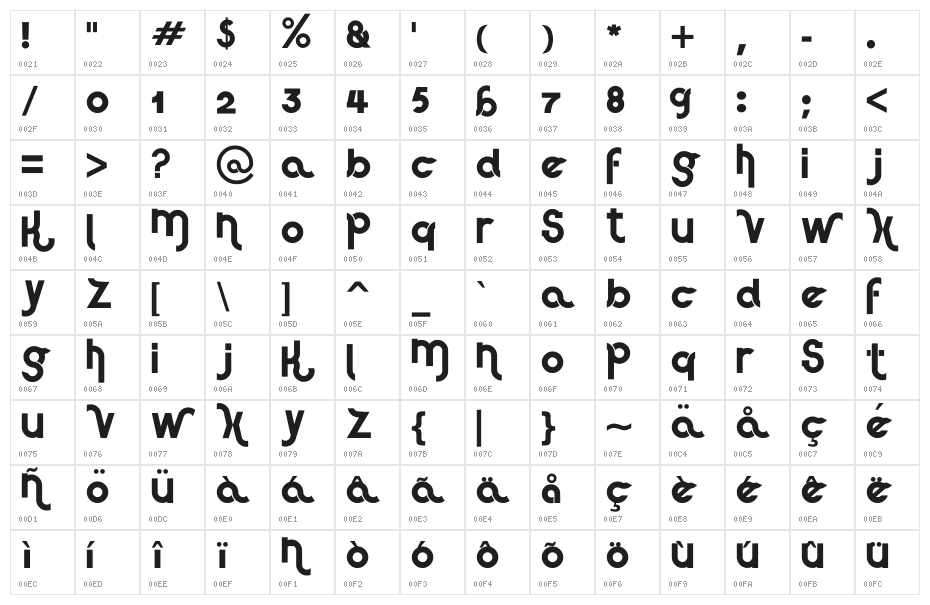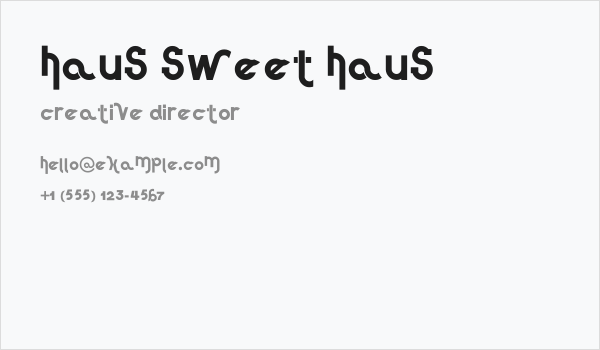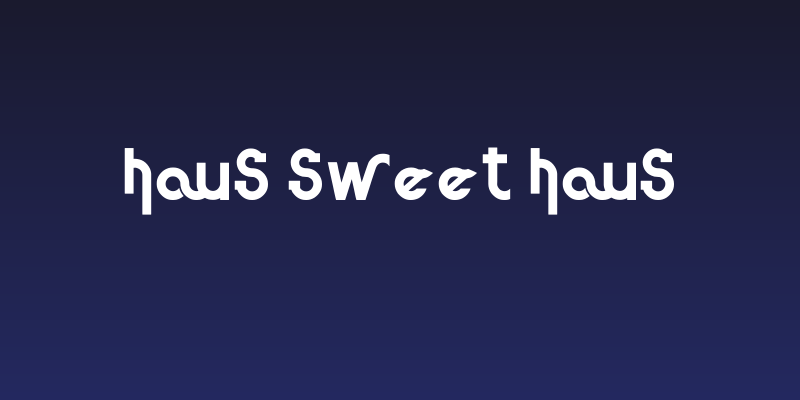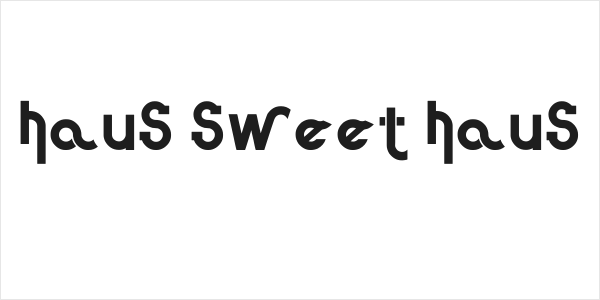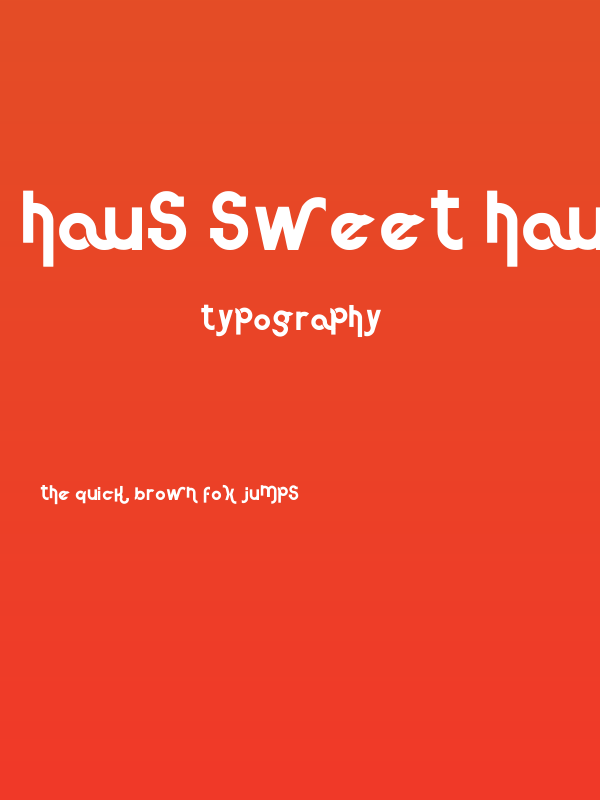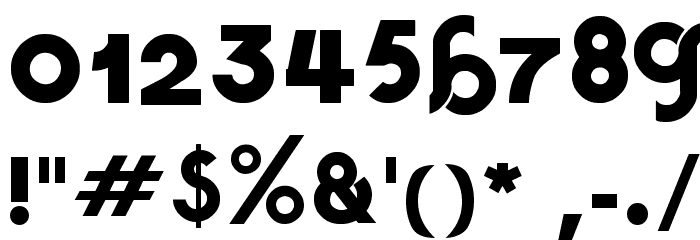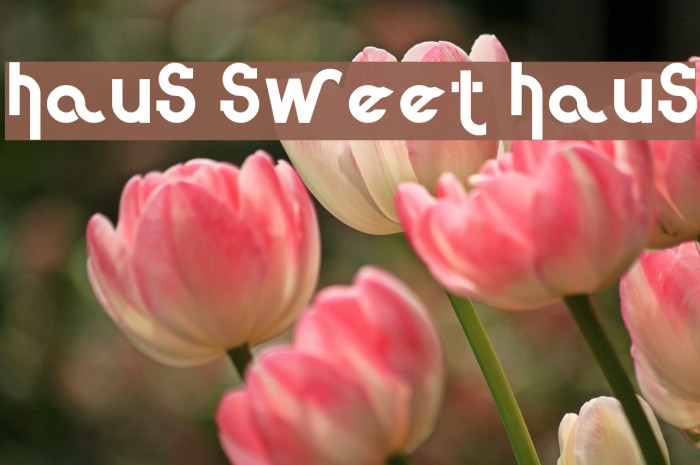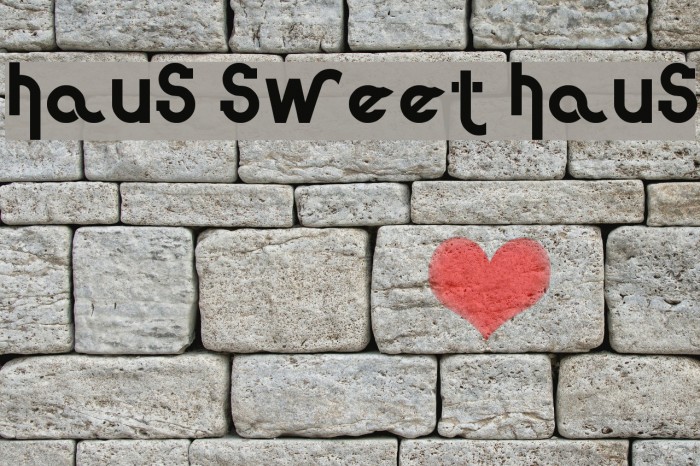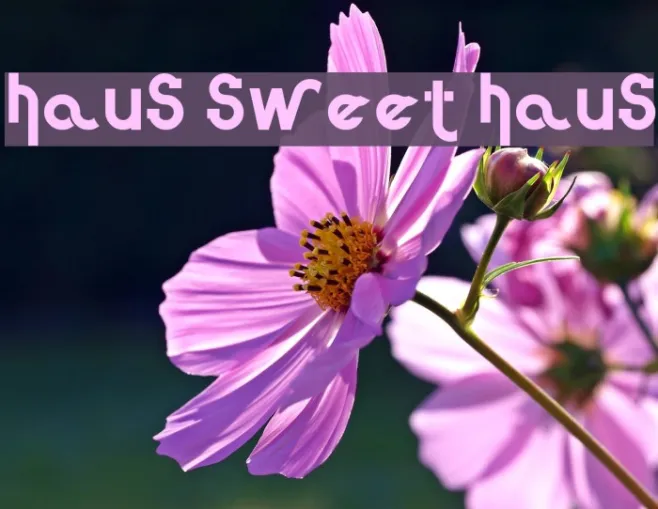
Haus Sweet Haus Font
Haus Sweet Haus Description
This font features a bold and playful design with a unique blend of curves and angles. The characters exhibit a strong presence with their thick strokes and rounded edges, creating a sense of warmth and friendliness. The uppercase and lowercase letters maintain a consistent style, with some characters displaying distinctive flourishes that add to the font's charm. Numbers and special characters are equally bold, ensuring readability and visual impact. The overall design is modern yet retains a touch of retro flair, making it versatile for various creative applications.
| Use Case | Logos, Headlines, Posters |
| Proposed Projects | Ideal for branding, posters, packaging, and playful editorial design. |